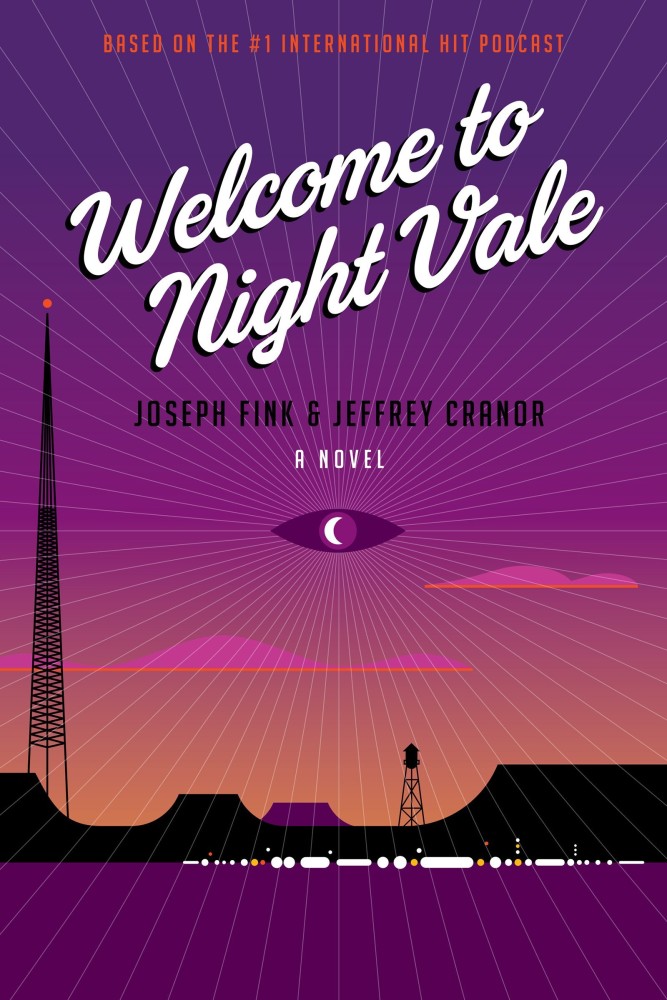
Welcome to Night Vale Font
BookWelcome to Night Vale is a 2015 novel written by Joseph Fink and Jeffrey Cranor. It is a spin-off of the popular podcast of the same name, which is a fictional radio show set in the small town of Night Vale, where strange and bizarre events occur on a regular basis.
Sauber Script, a script typeface designed by Michael Hochleitner, is used on the book cover as the book's title. Big Noodle Titling by Sentinel Type is the supporting typeface. The podcast logo similarly makes use of sans serif typeface. The font is available for free download in the Fonts Used Section.